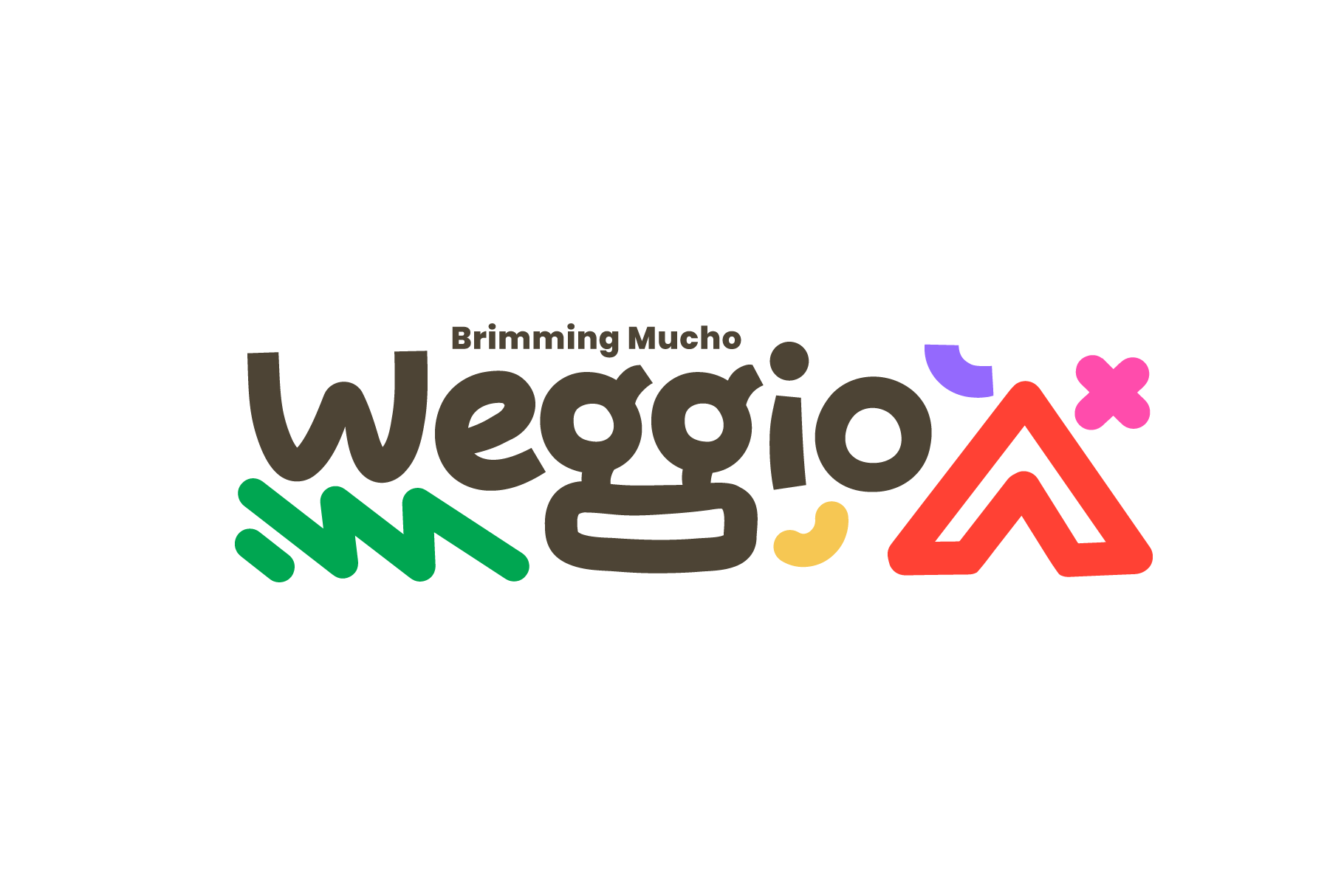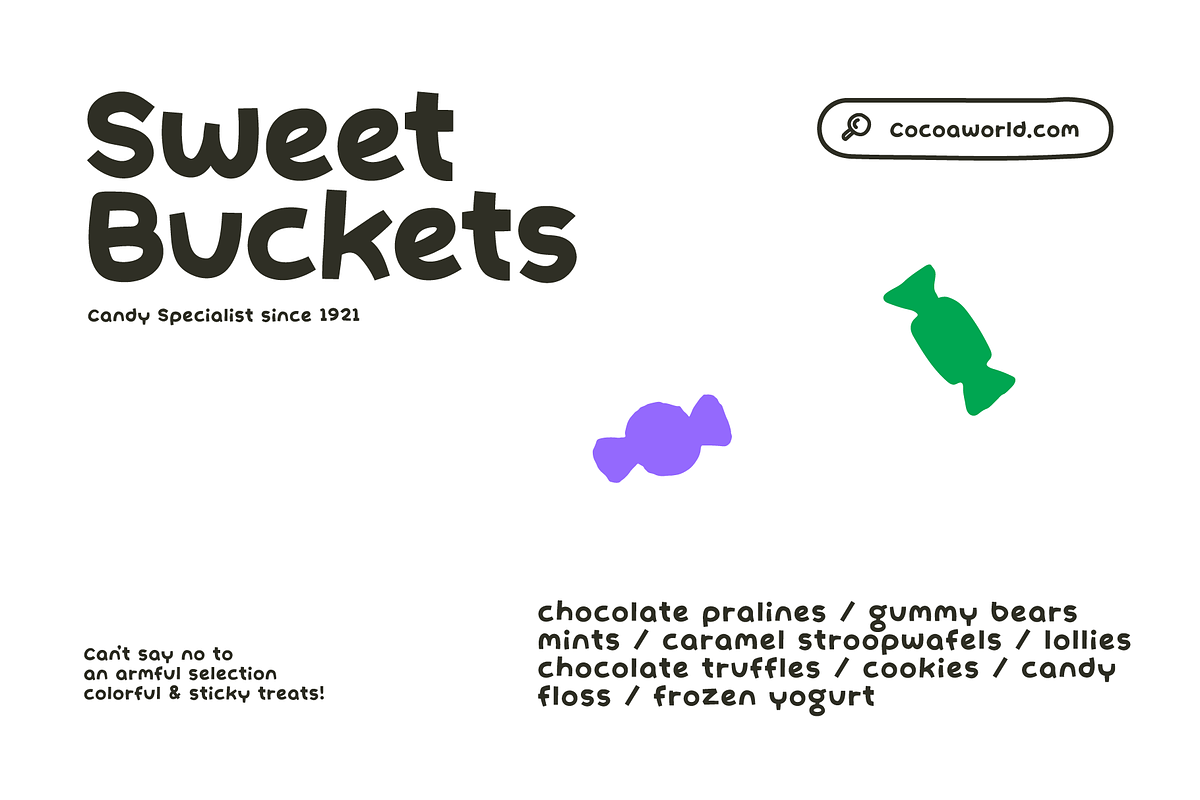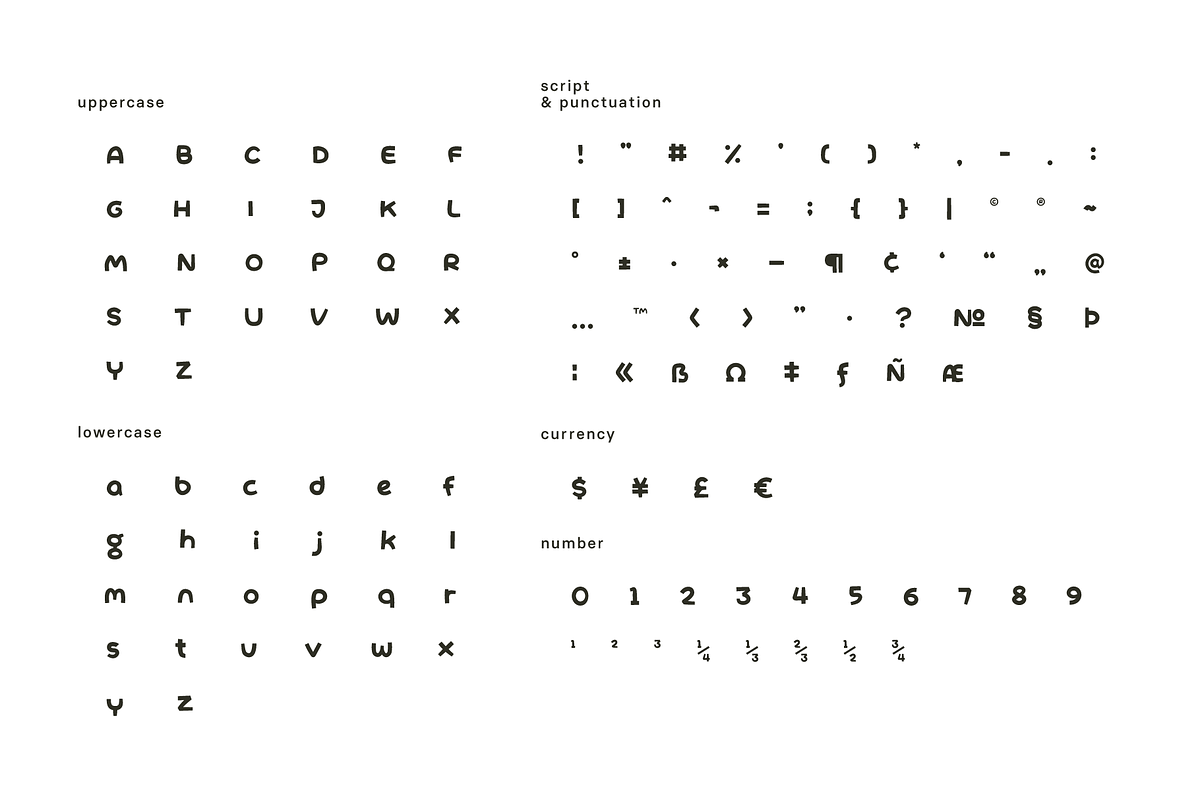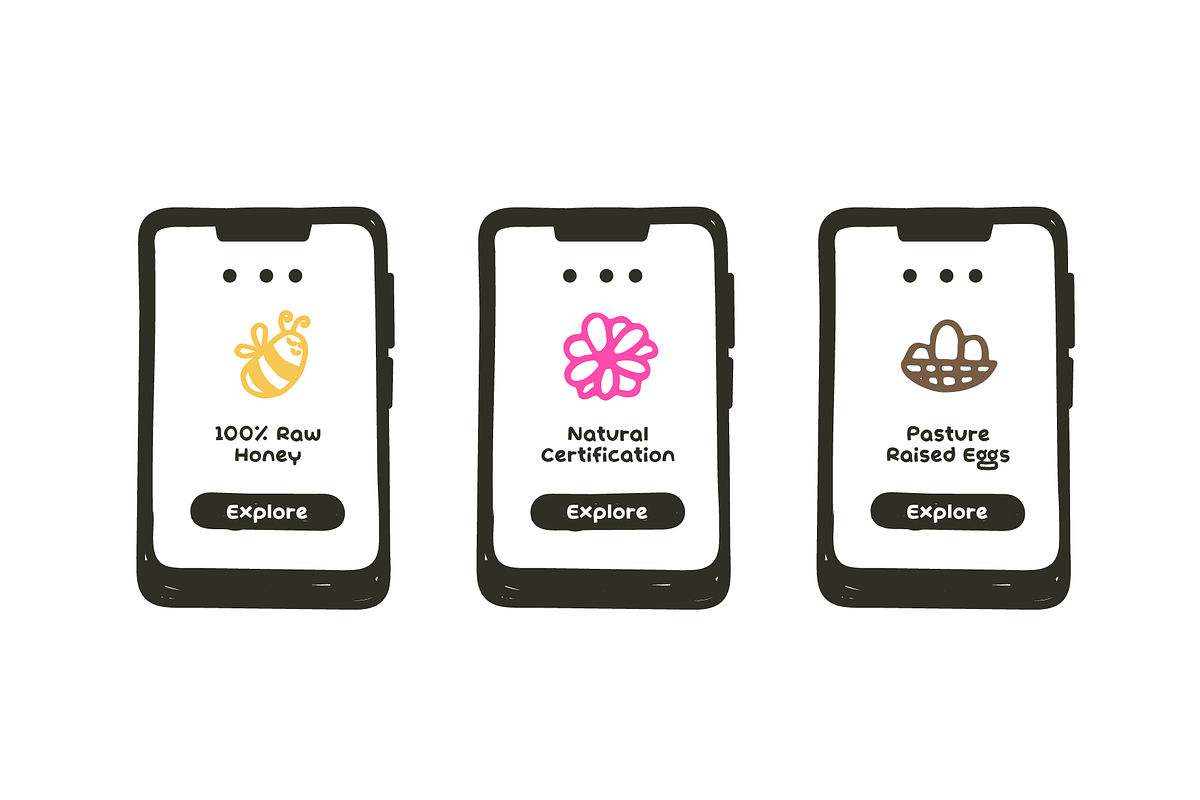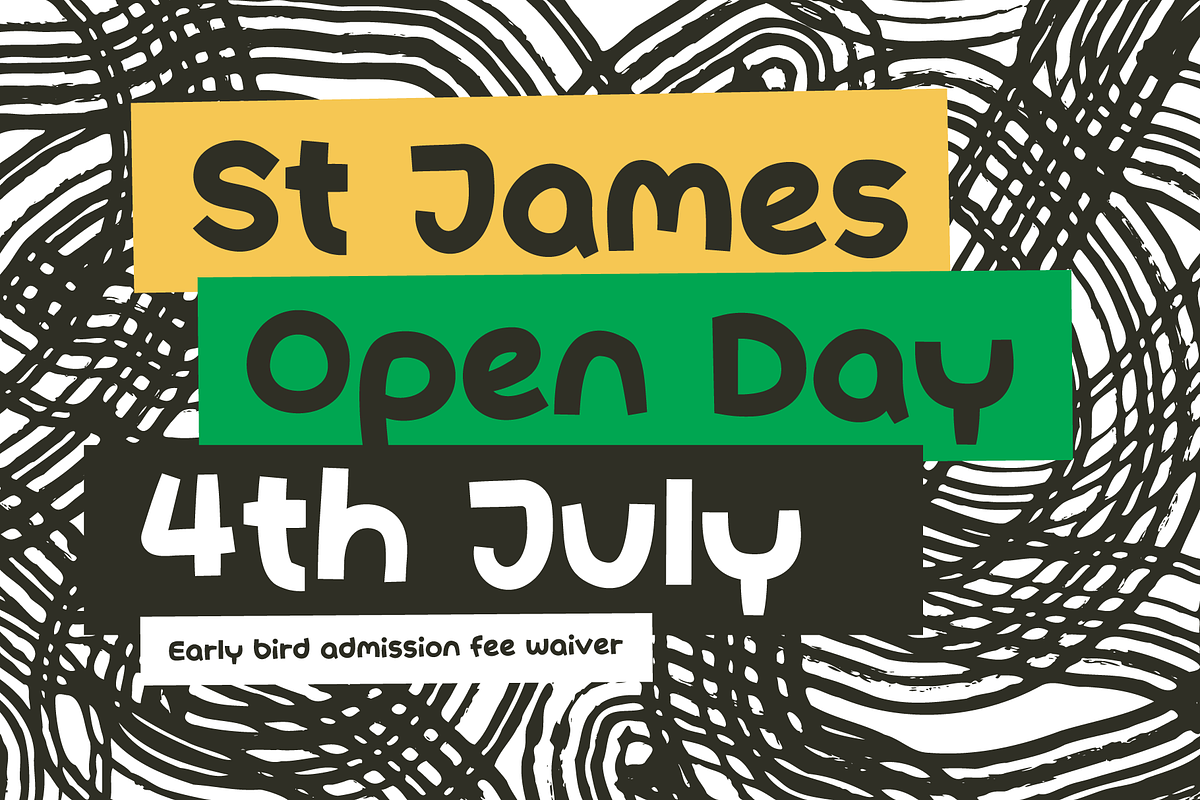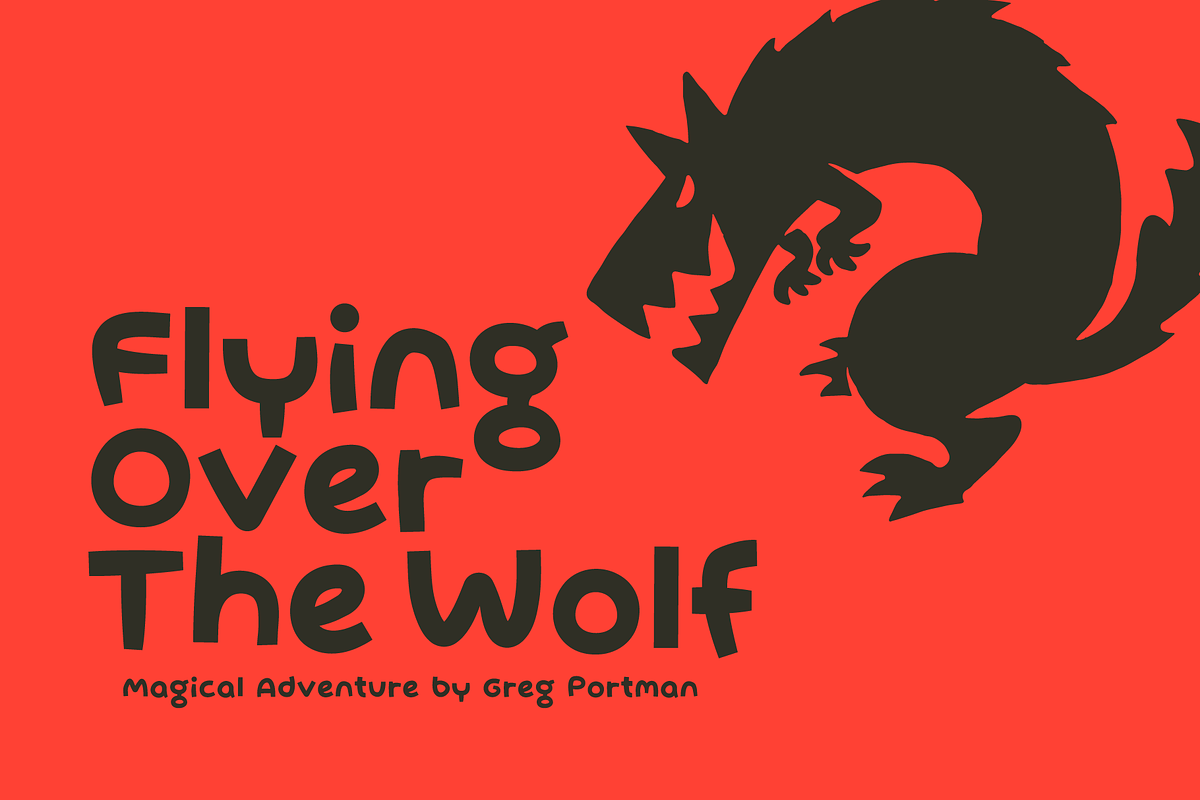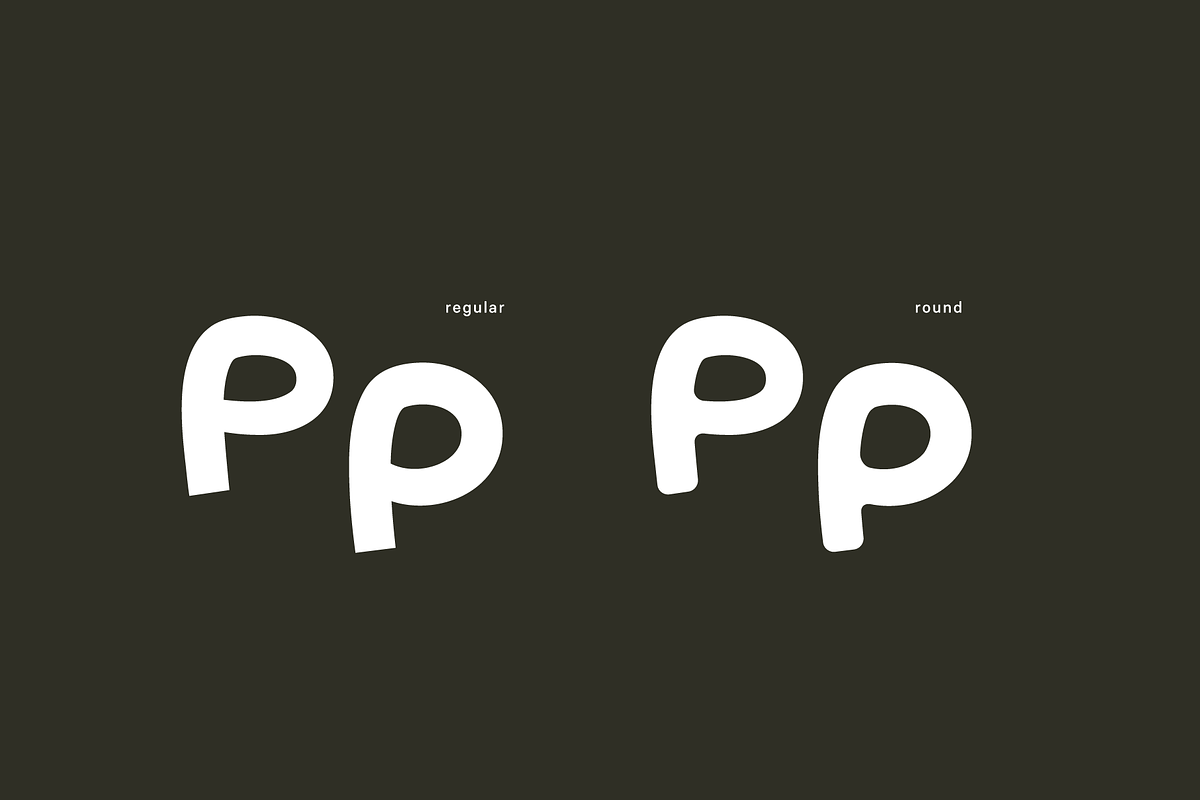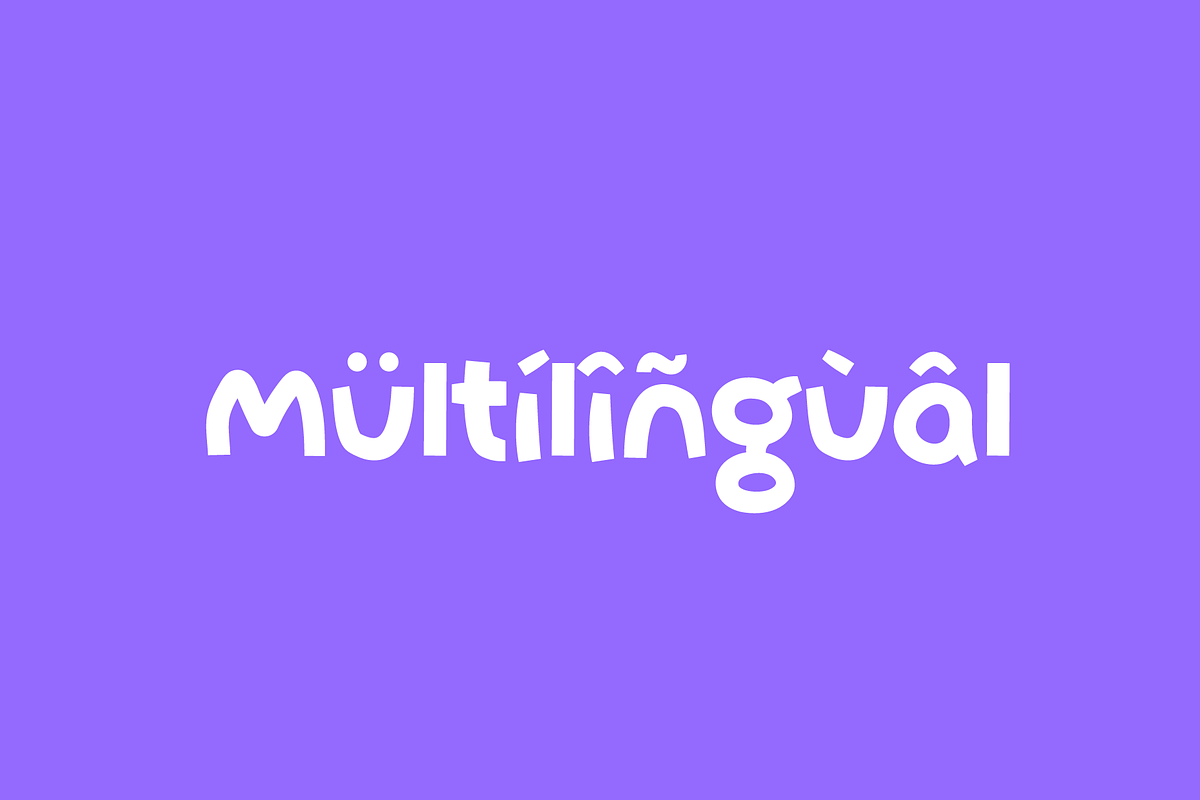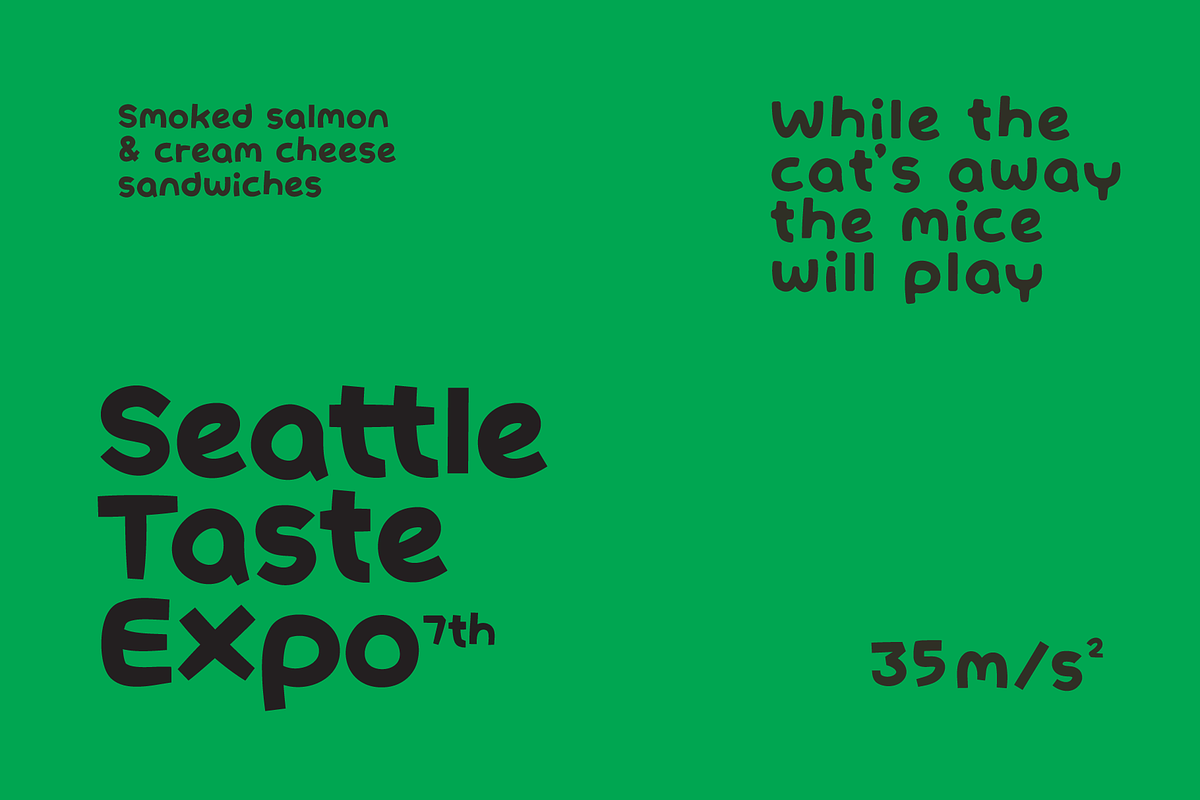
Weggio Font
Weggio is a brimming mucho handwritten typeface apt for headline, editorial, branding, packaging, printed materials and typographic applications. 200+ glyphs including punctuation and numerical.